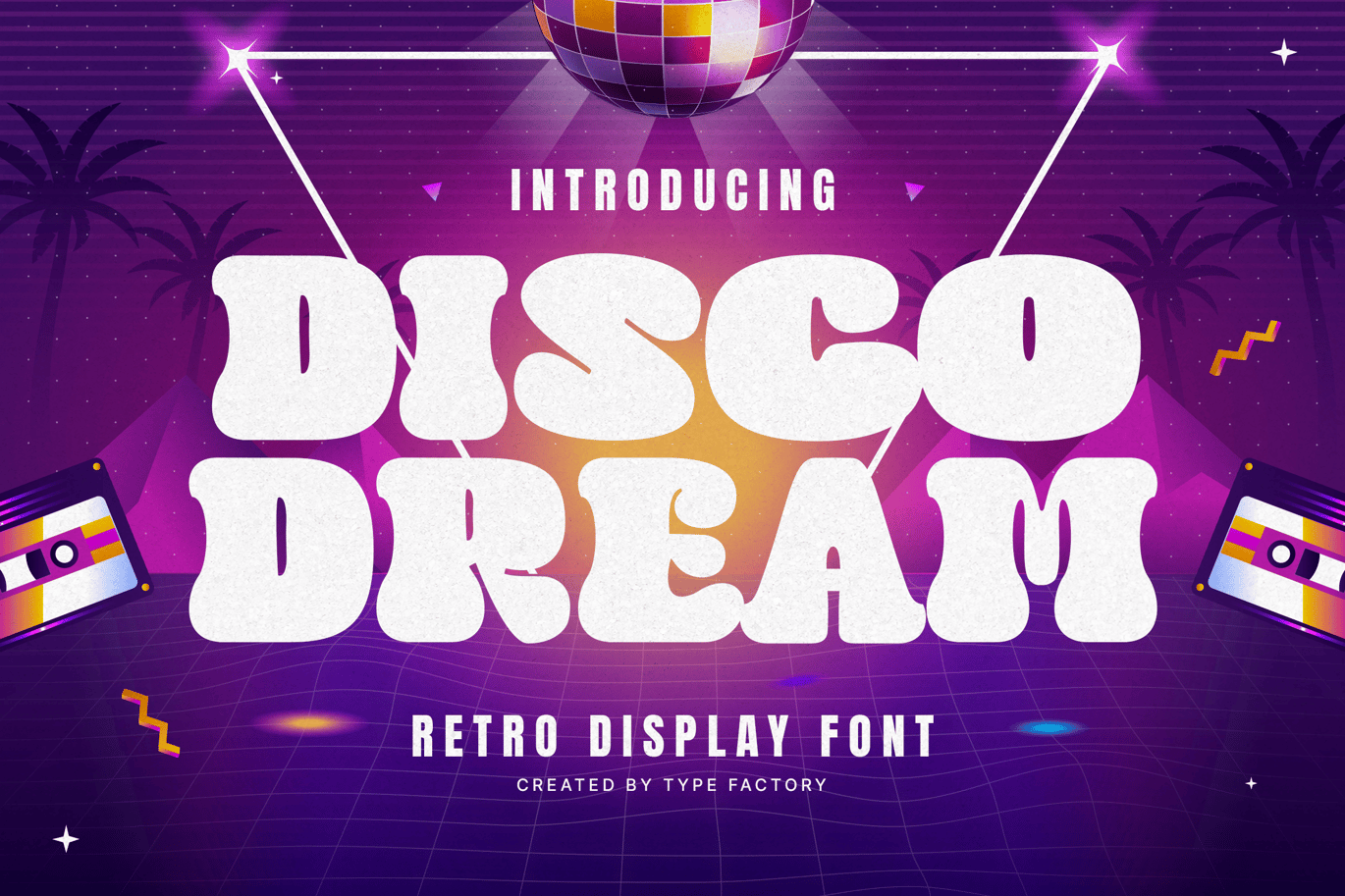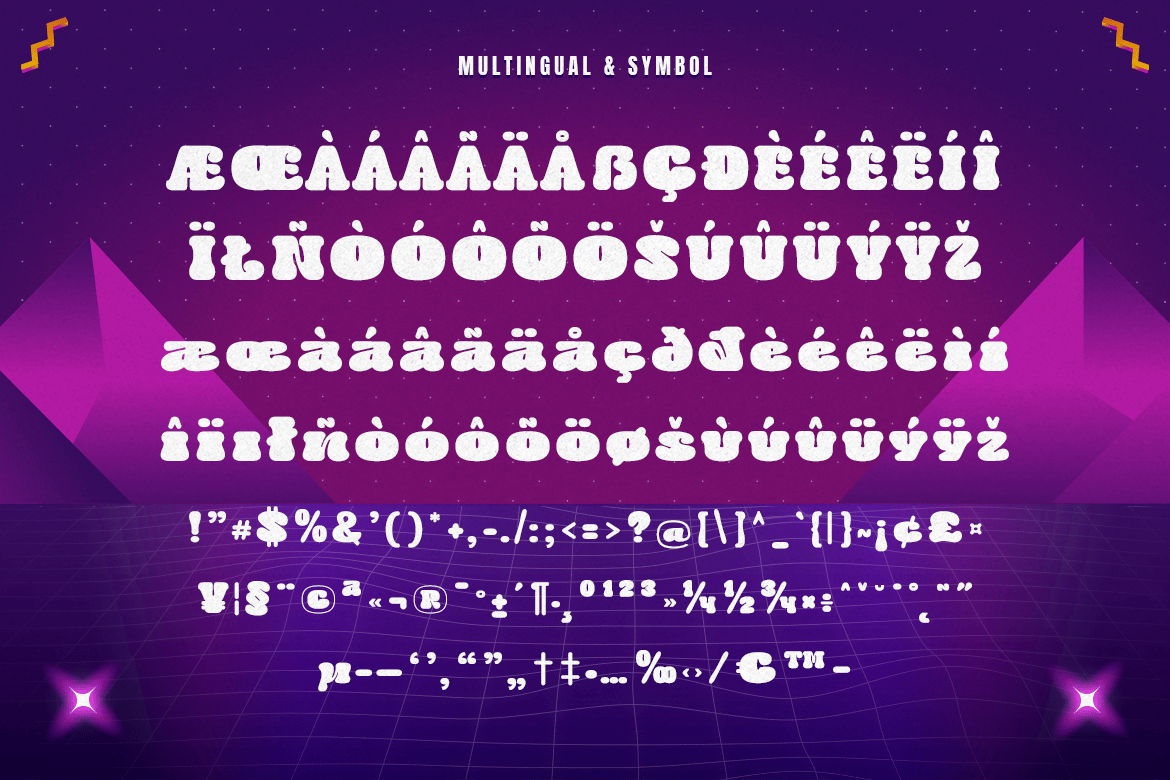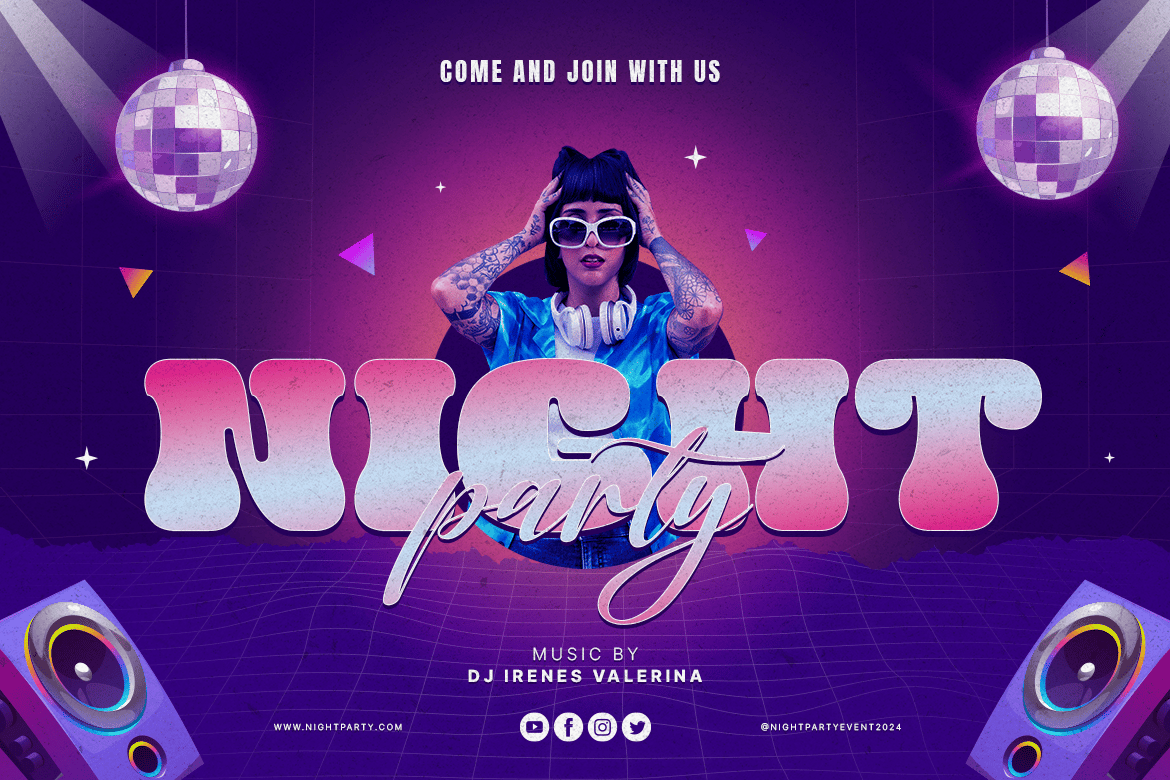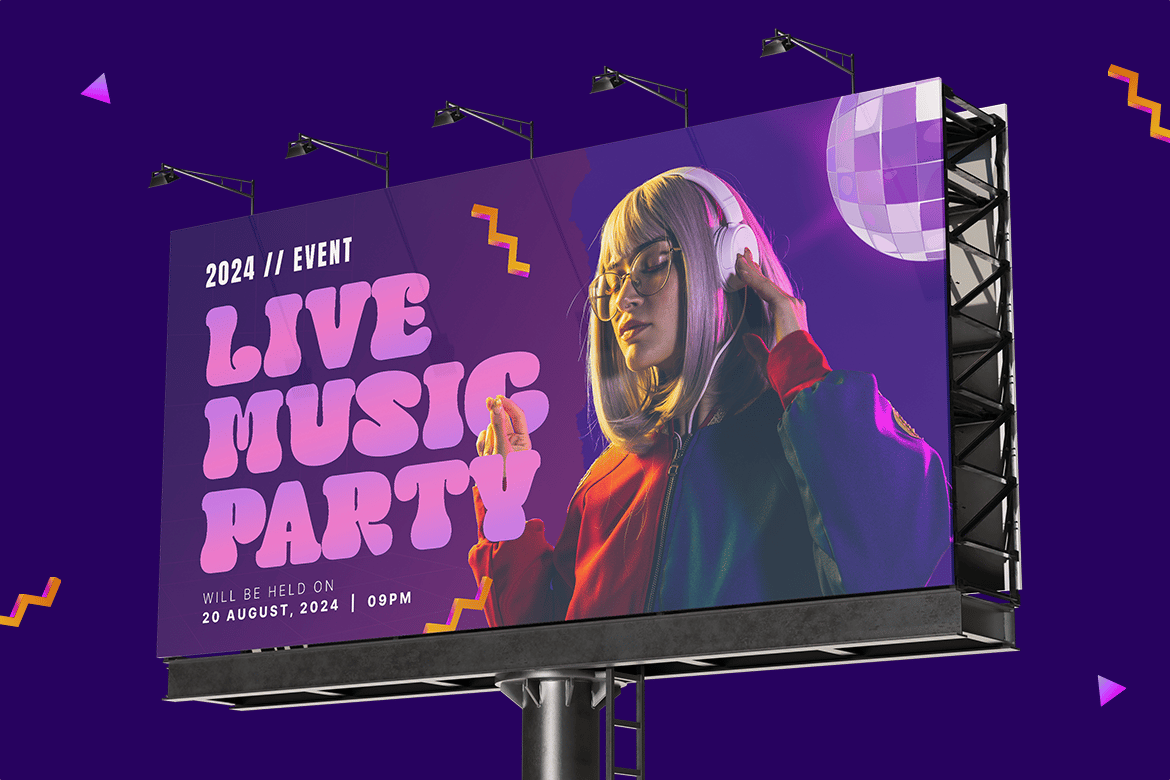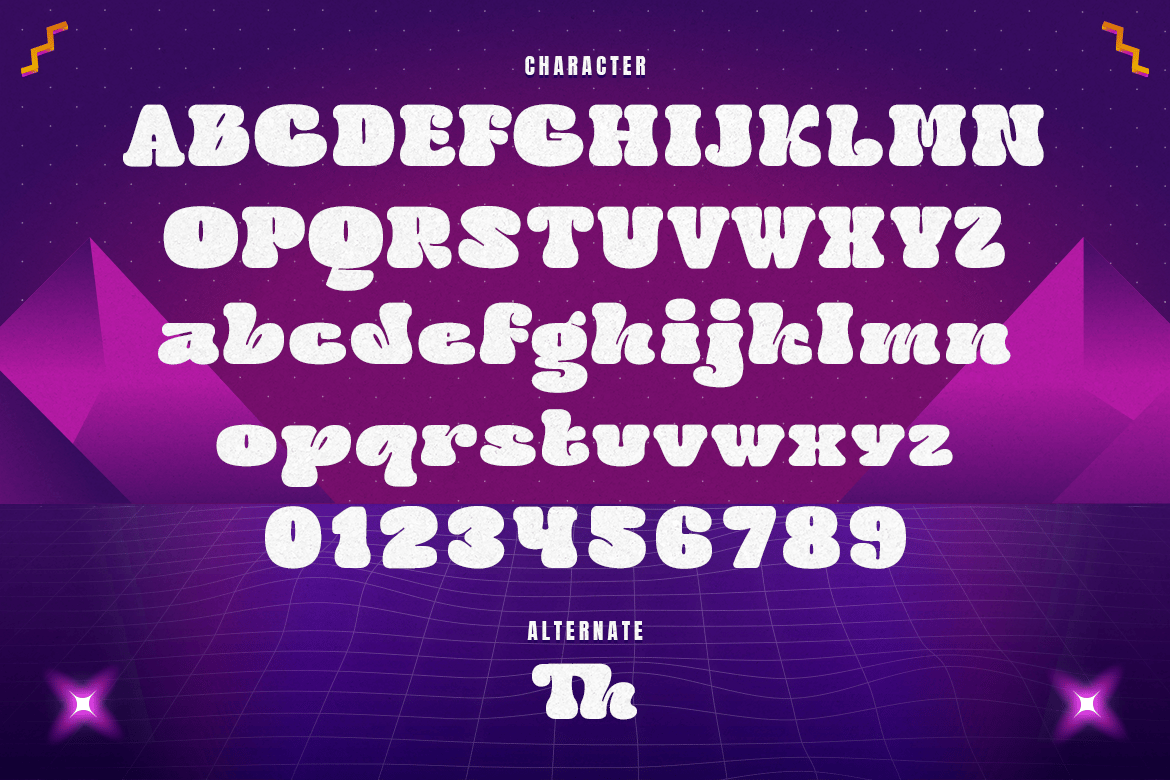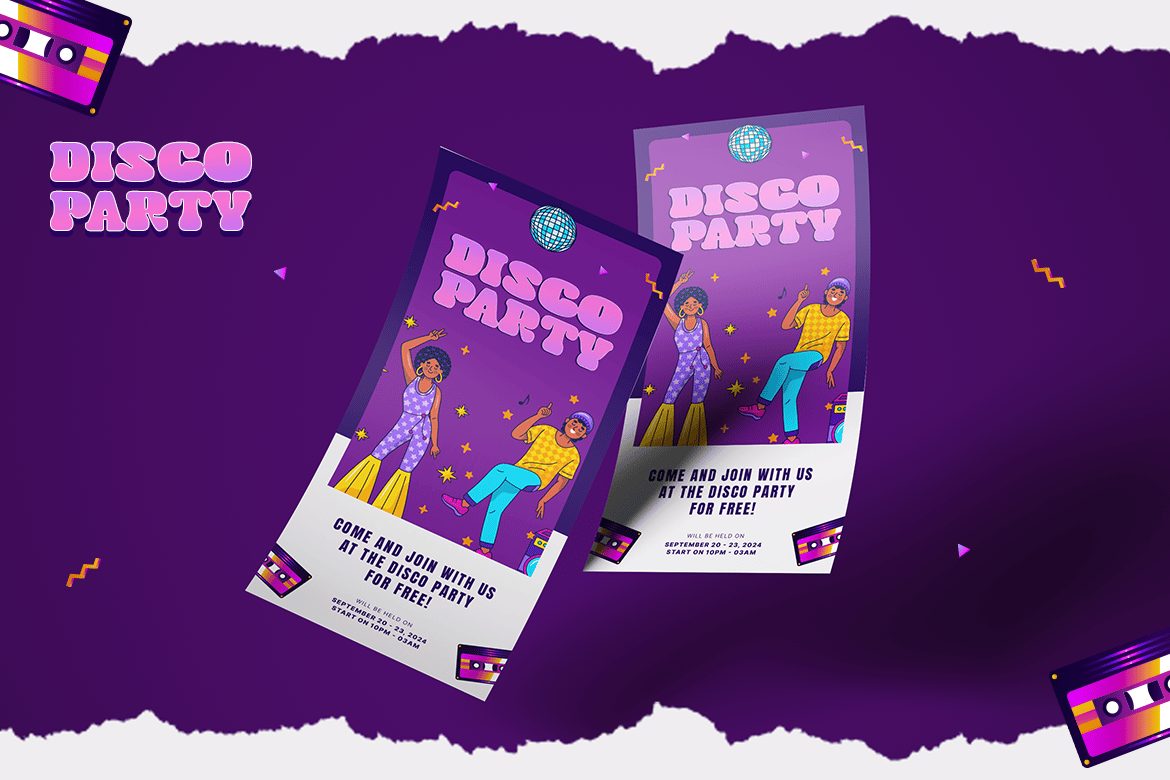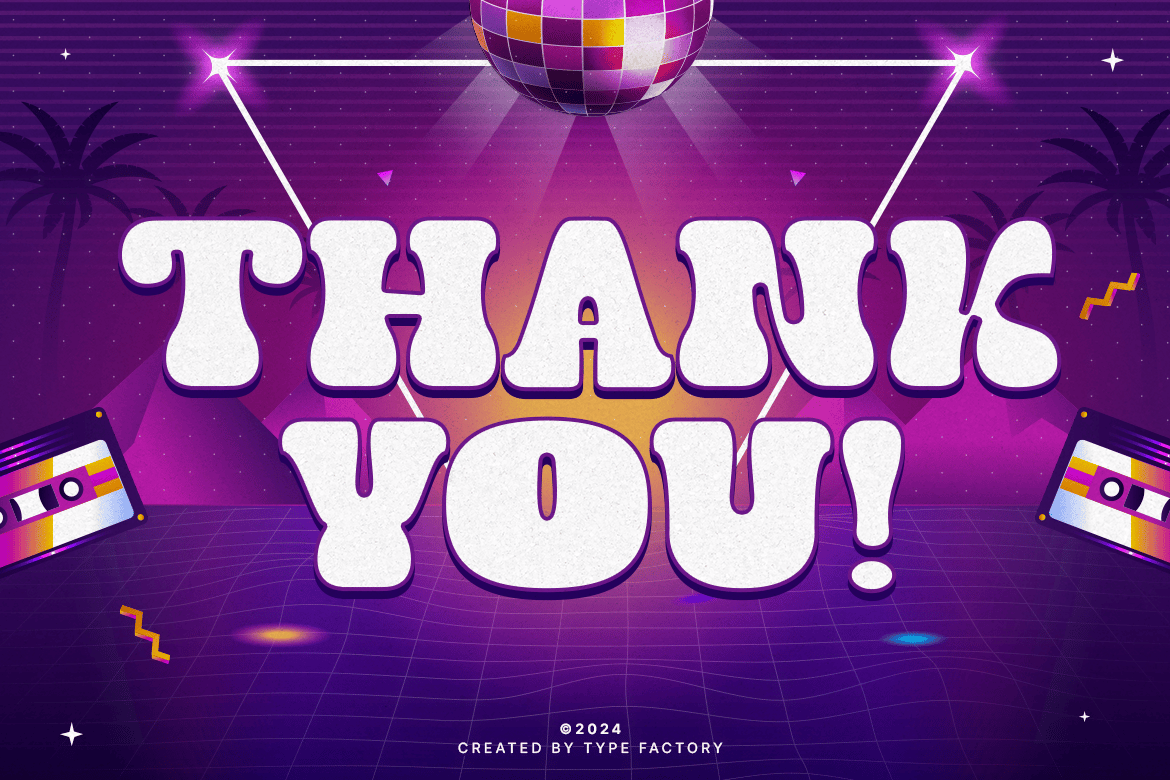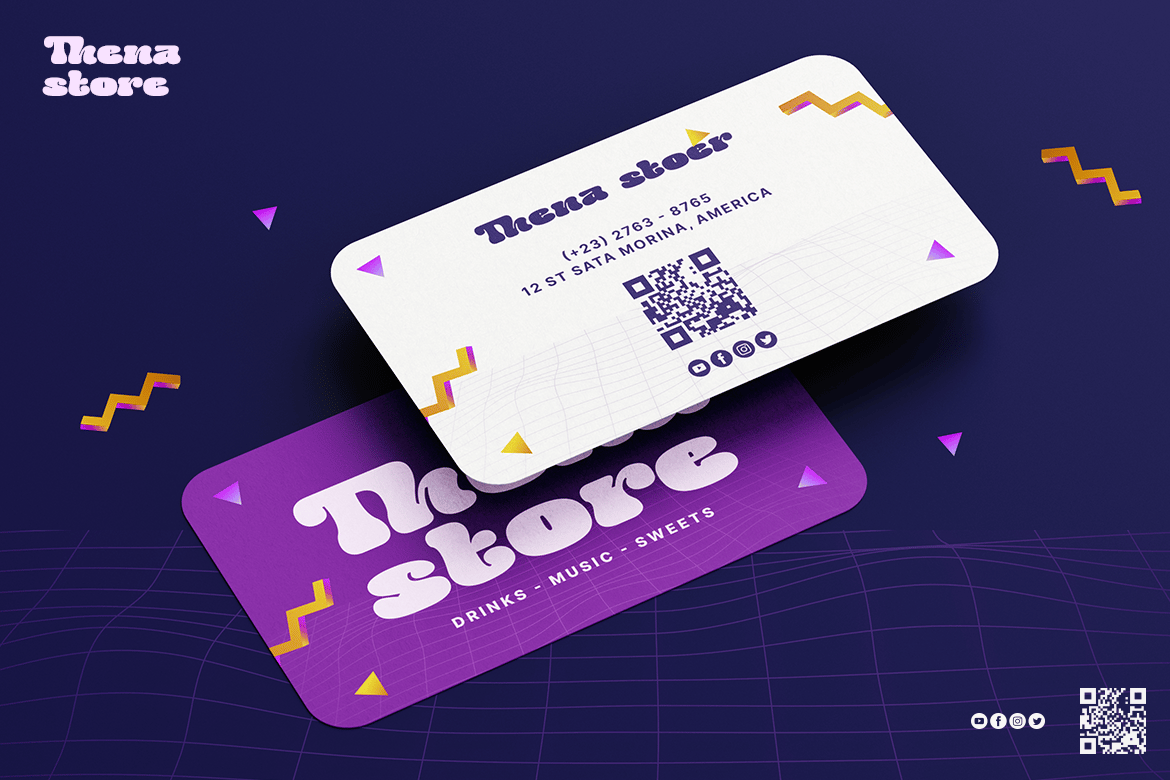
Disco Dream – Retro Display Font
Disco Dream is a vibrant retro display font that transports you back to the glitz and glam of the disco era. With its bold, groovy letterforms and funky style, Disco Dream is perfect for creating eye-catching posters, album covers, event flyers, and branding that needs a touch of nostalgia and energy. This typeface captures the essence of 70s disco culture, radiating a playful and electric vibe that makes your designs stand out. Whether you’re designing for a party, a throwback event, or just want to add some retro flair, Disco Dream brings the dance floor to your project.